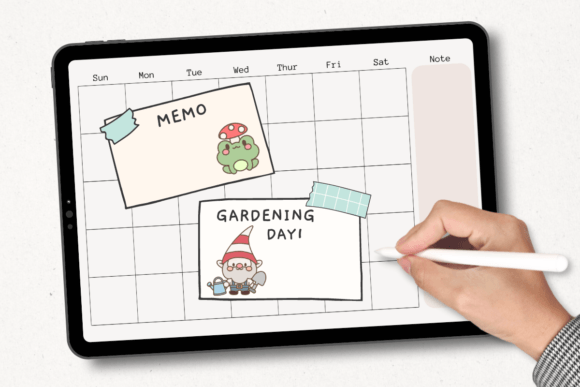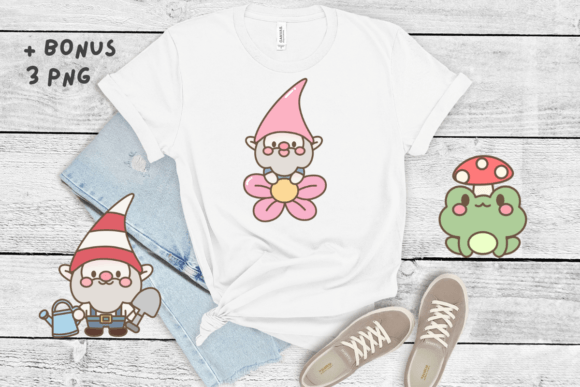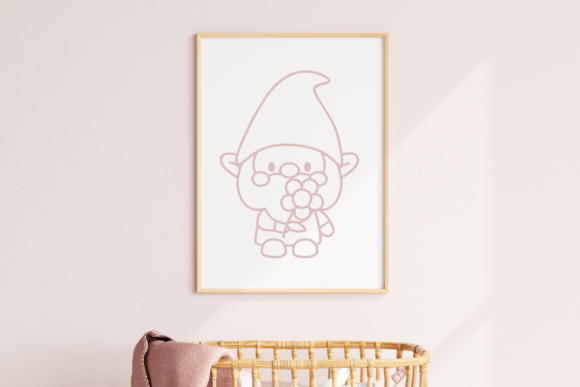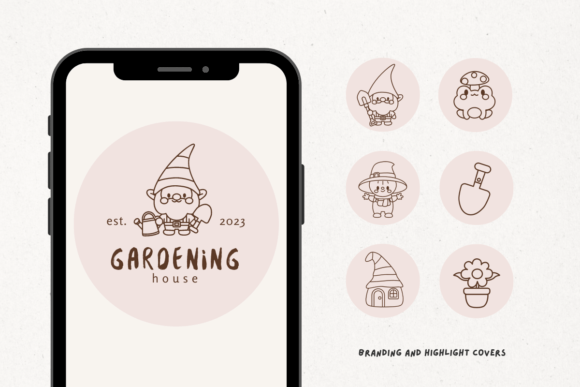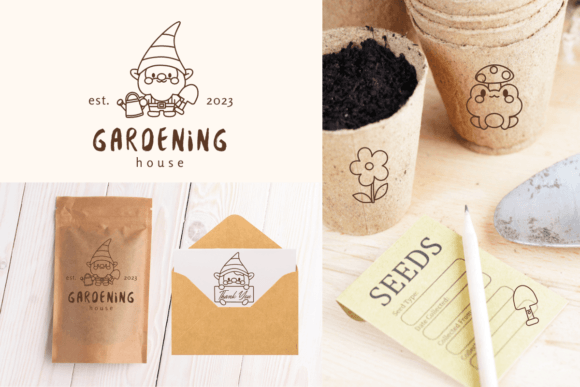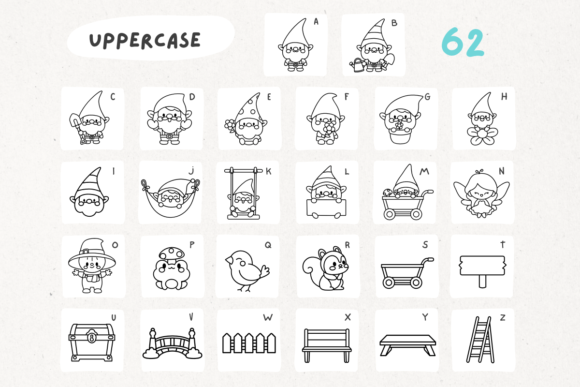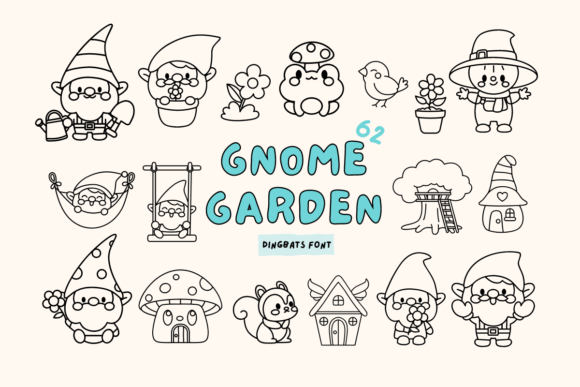
Gnome Garden Font: Add a Touch of Whimsy to Your Designs
Are you a designer or crafter looking for a unique and enchanting font to add a touch of magic to your creative projects? Look no further than the Gnome Garden Font! This delightful dingbat font is perfect for a wide range of projects, from sticker planners to coloring books and beyond. In this article, we’ll explore the features and benefits of the Gnome Garden Font and show you how to incorporate it into your designs.
What is Gnome Garden Font?
Gnome Garden Font is a charming dingbat font that features adorable gnome-themed symbols. These whimsical illustrations are sure to bring a smile to your face and add a touch of personality to your designs. The font is highly versatile and can be used for a variety of creative projects, including:
• Sticker planners and journals
• Coloring books and pages
• Digital art and illustrations
• Paper crafts and card making
• Web graphics and social media posts
Features of Gnome Garden Font
The Gnome Garden Font is packed with features that make it a must-have for designers and crafters. Here are just a few of the benefits you can expect:
• Unique and exclusive illustrations: The Gnome Garden Font features original and exclusive illustrations that you won’t find anywhere else.
• High-quality design: The font is carefully crafted with attention to detail, ensuring that each symbol is crisp and clear.
• Scalable: The font is highly scalable, allowing you to use it for a wide range of projects, from small icons to large posters.
Inspiration for Your Designs
Need some inspiration for your designs? Here are a few ideas to get you started:
• Create a whimsical sticker planner: Use the Gnome Garden Font to add cute and colorful stickers to your planner pages.
• Design a magical coloring book: Create a coloring book featuring the adorable gnome-themed symbols from the font.
• Add a touch of personality to your digital art: Use the Gnome Garden Font to add a touch of whimsy to your digital art and illustrations.
The Gnome Garden Font is a must-have for designers and crafters looking to add a touch of magic to their creative projects. With its unique and exclusive illustrations, high-quality design, and ease of use, this enchanting dingbat font is sure to bring a smile to your face and inspire your creativity. So why wait? Download the Gnome Garden Font today and start adding a touch of whimsy to your designs!